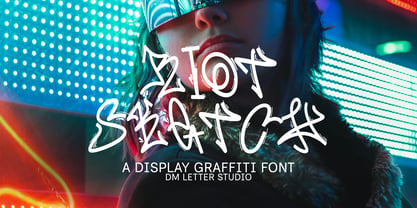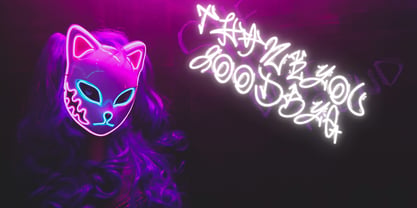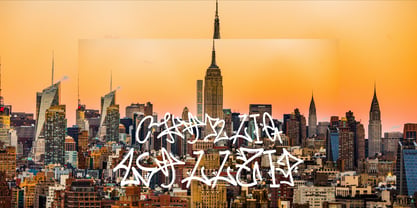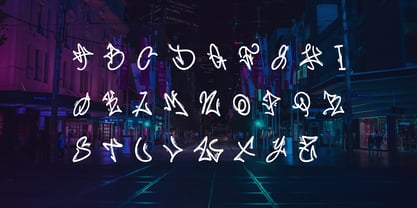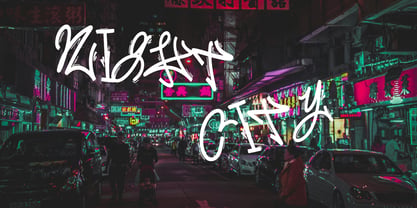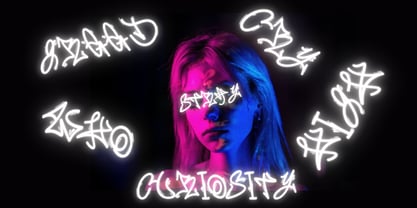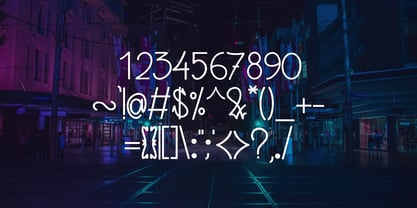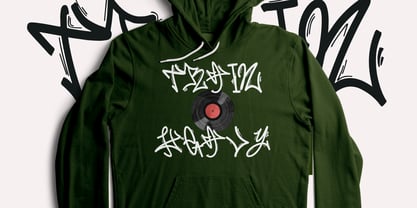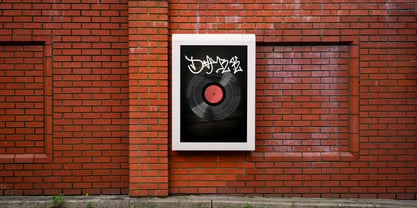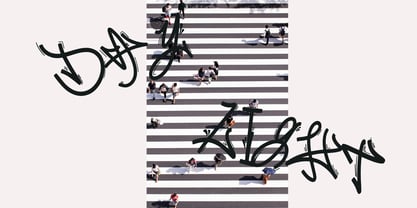
Riot Sketch
Meet Riot Sketch, the Sketch Display Font Riot Sketch is a rough sketch-style display font built to bring raw creative energy into your designs. The strokes feel fast and hand-drawn, like a spontaneous marker sketch straight from a designer’s notebook. Its imperfect lines give it a rebellious personality that works perfectly for expressive and artistic layouts. Use Riot Sketch for creative posters, YouTube thumbnails, gaming graphics, social media designs, street-style branding, and bold merch. As a result, your typography feels energetic, artistic, and full of personality.   Why Riot Sketch sells First, Riot Sketch installs quickly and works smoothly in Canva, Photoshop, and Illustrator. Next, the sketch-style strokes give designs an instant hand-drawn vibe without extra illustration work. Then layouts come together faster because the font already carries movement and character. Moreover, sketch and hand-drawn aesthetics are popular in youth branding, gaming content, and creative marketing visuals. Therefore, Riot Sketch fits perfectly into modern expressive font collections.   Fast layouts with the Riot Sketch Font Start with bold words or short creative phrases. After that, combine it with brush textures or doodle elements to enhance the sketch feel. Because the lines are intentionally rough, keep the background simple to maintain readability. In addition, pair it with a clean sans serif for secondary information. Finally, try palettes like black and white, red and charcoal, electric blue and gray, or yellow and black for a dynamic, creative look.   Creative uses and quick wins YouTube thumbnails and creative video titles Gaming graphics and streaming overlays Street-style posters and social media content Sketch-style merch and expressive branding What you get Uppercase and lowercase letters Numbers and basic punctuation Design tips for Riot Sketch Use Riot Sketch for headlines, posters, and expressive phrases rather than long paragraphs. Also, combine it with rough brush textures or scribble graphics for a stronger visual impact. For print, test darker backgrounds to enhance contrast. For digital content, increase the size slightly so sketch lines stay visible on small screens. Finally, mix it with geometric shapes or marker-style highlights to create a bold, creative layout.